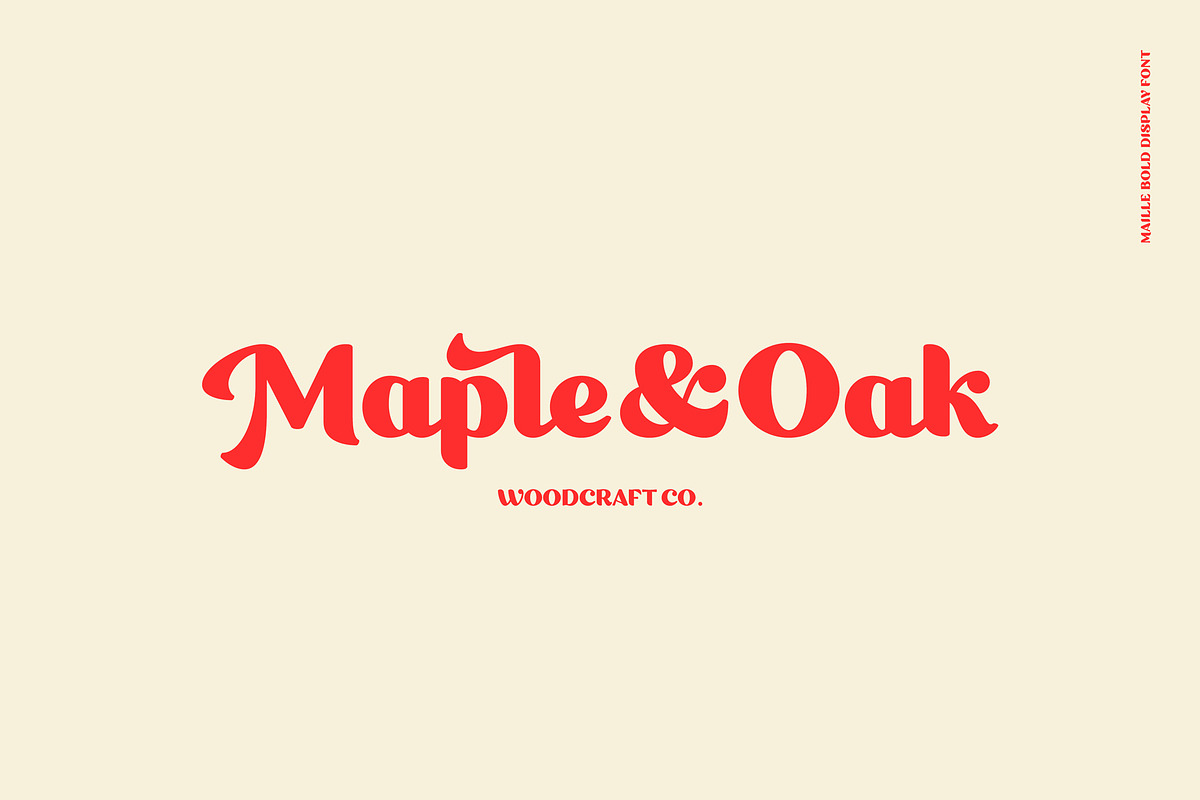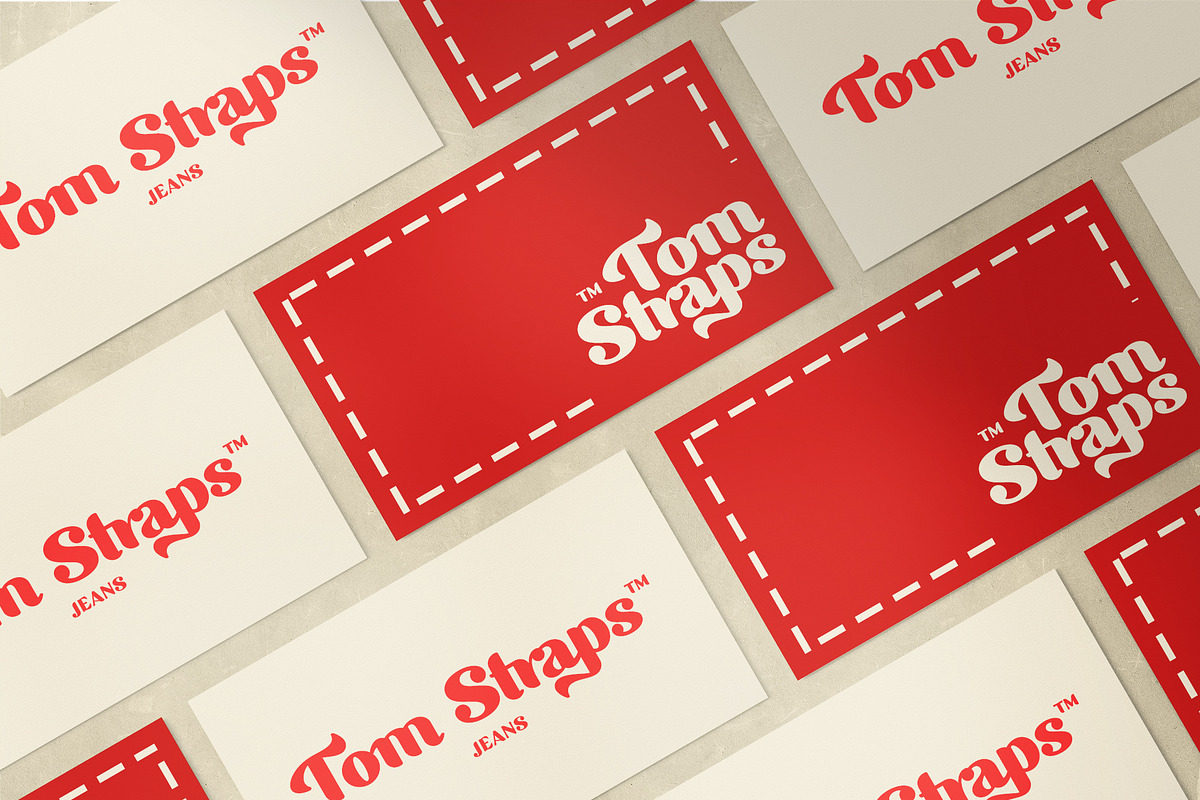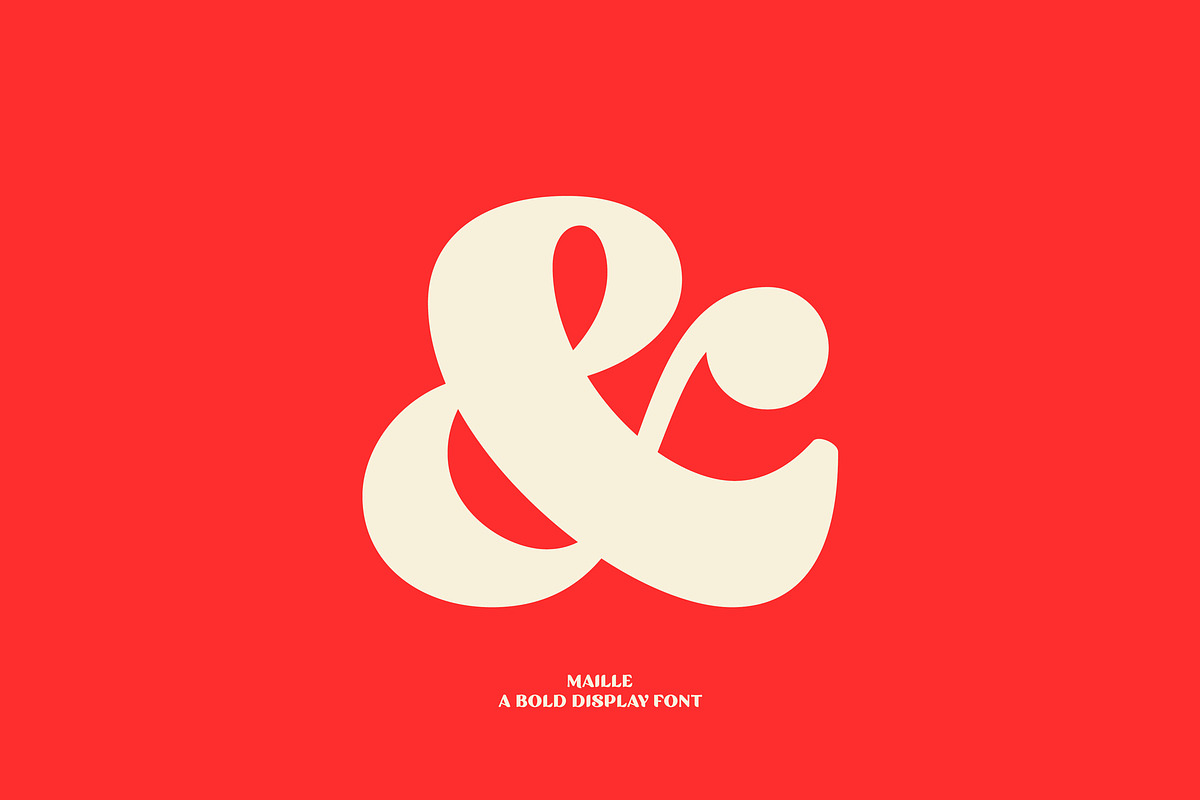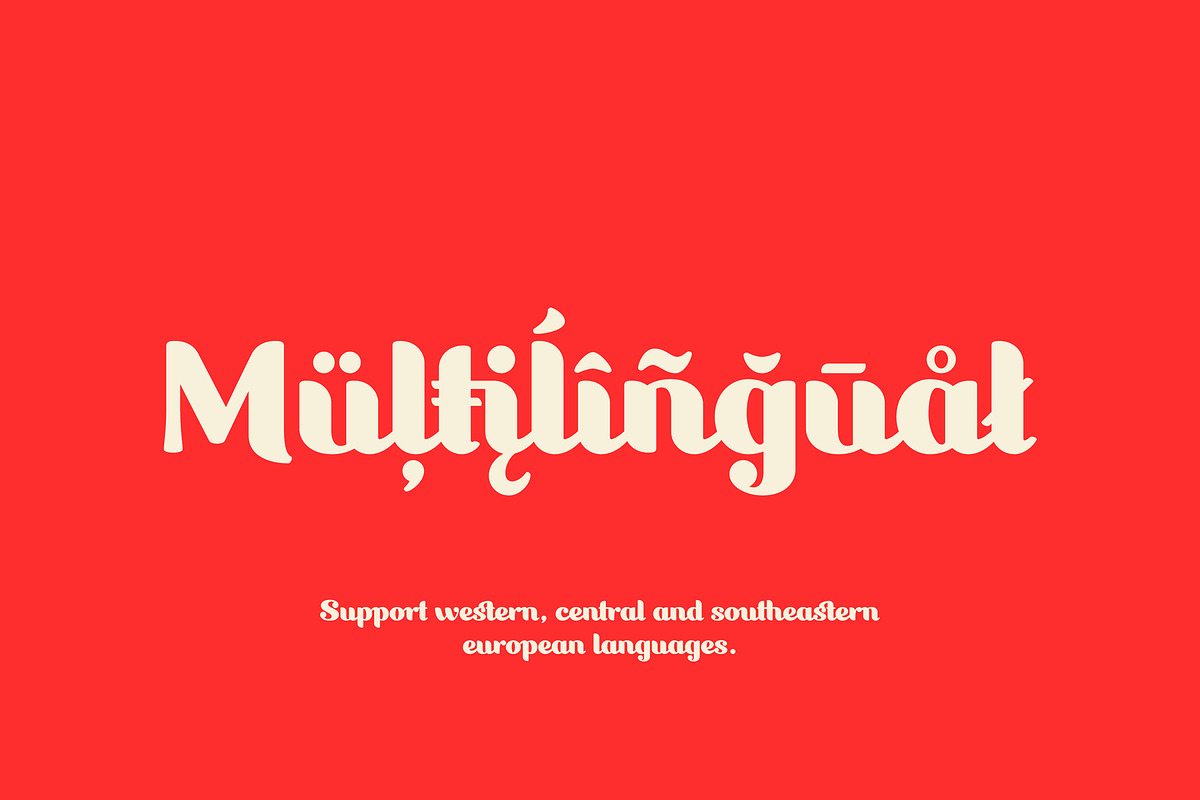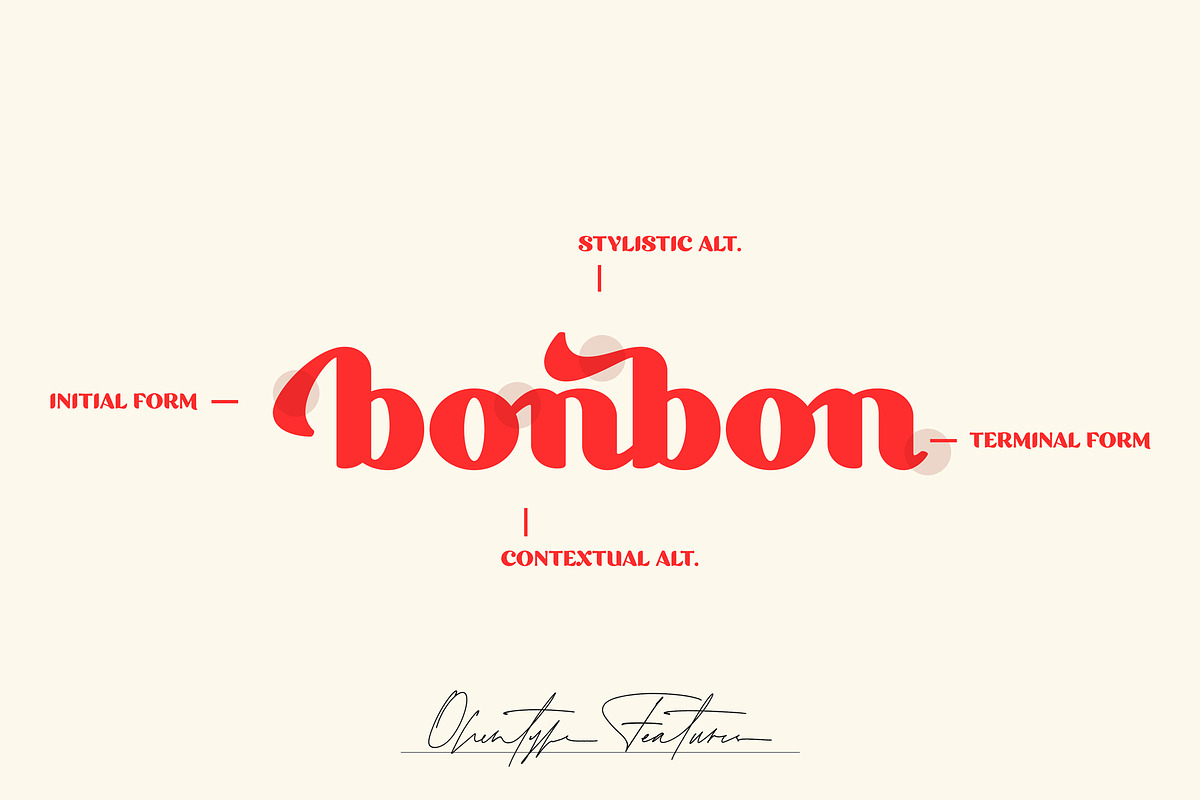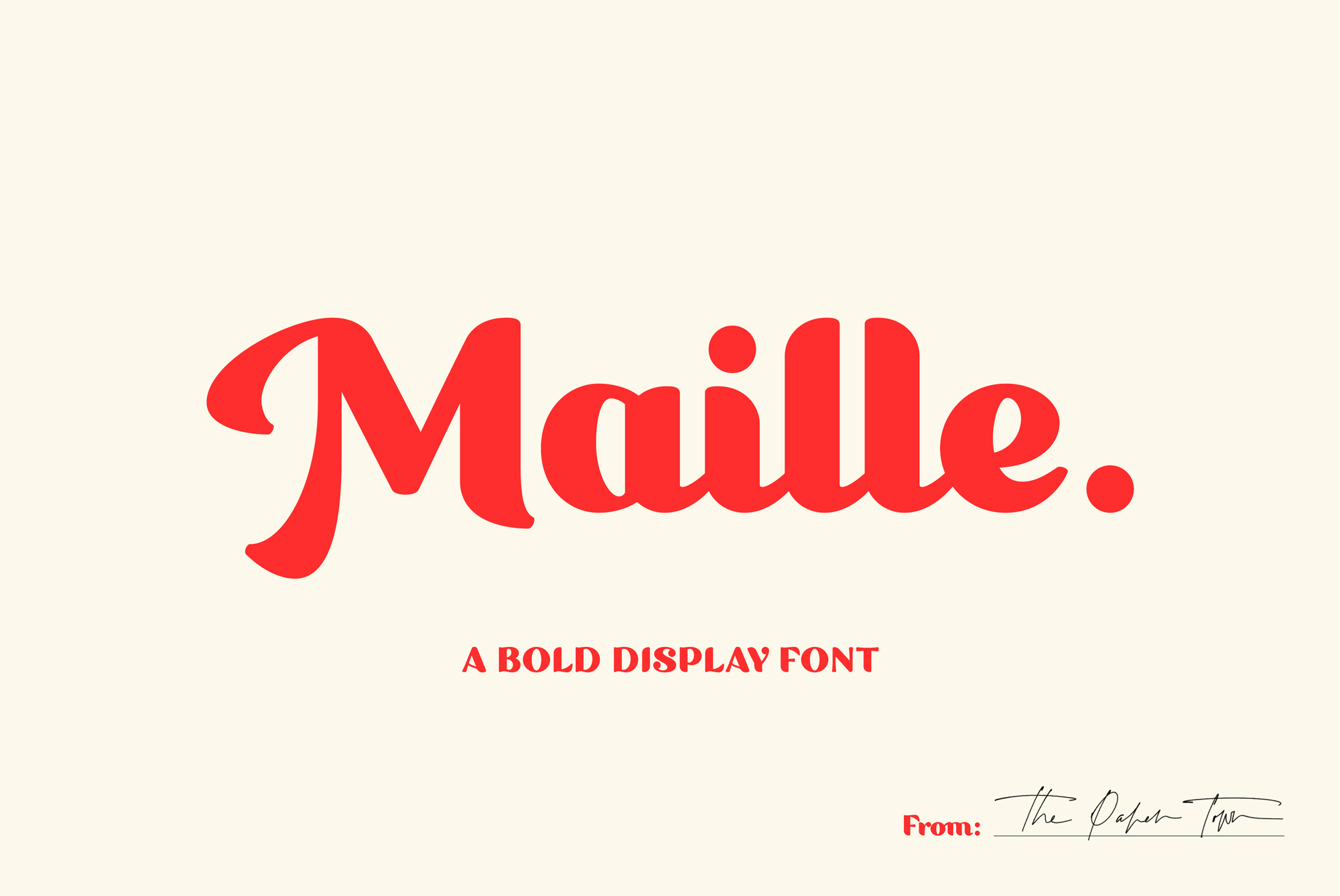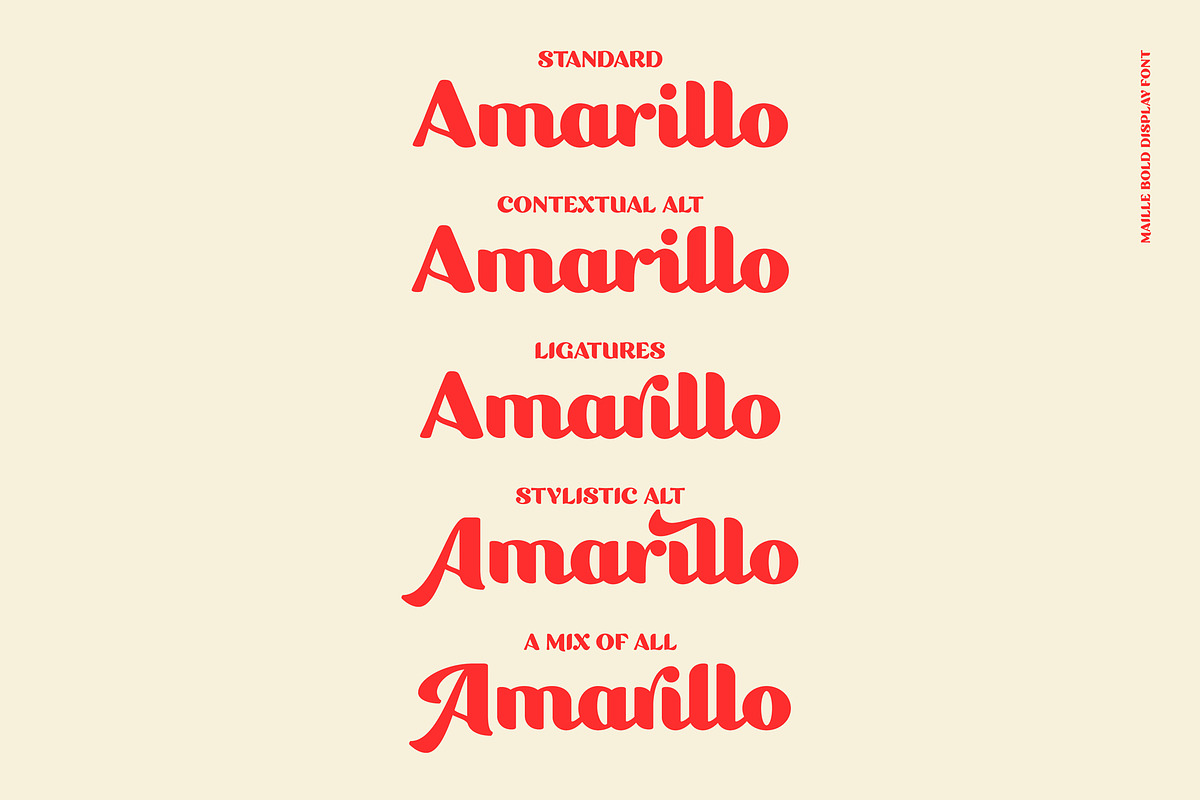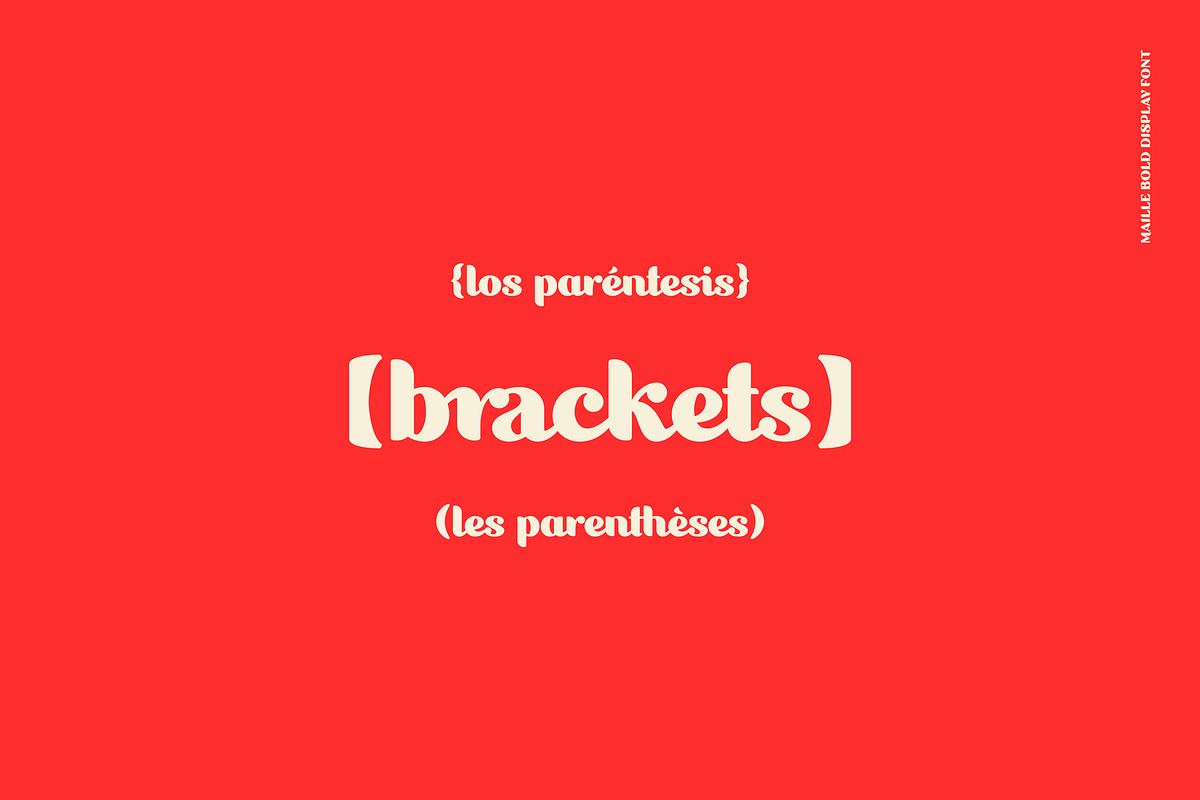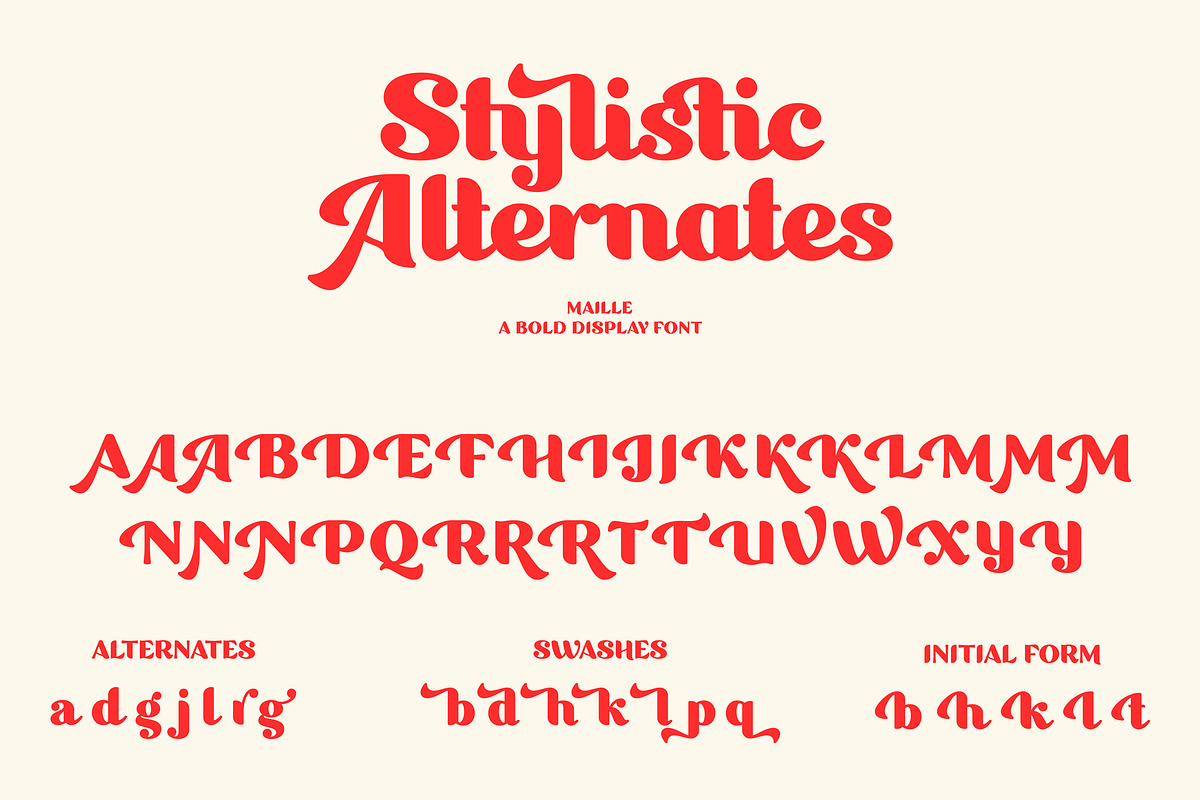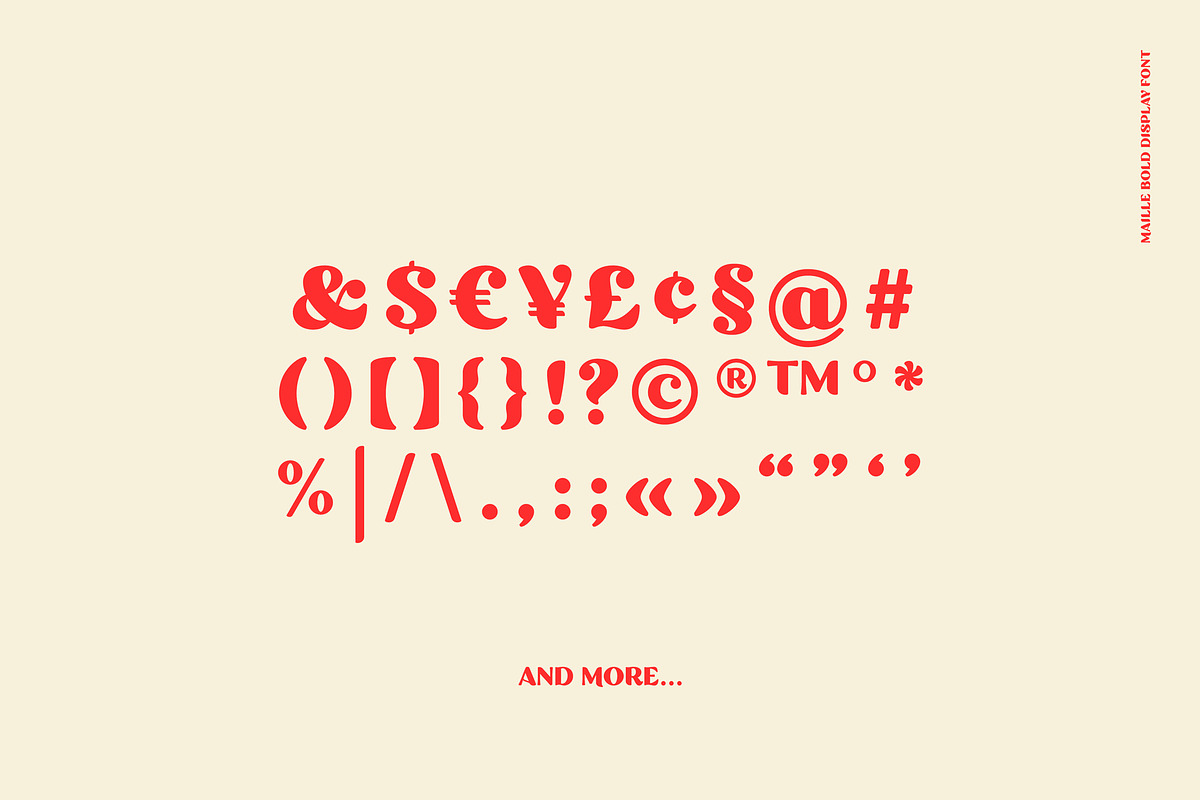
Introducing "Maille" a bold display font powered by OpenType, featuring contextual alternates, beautiful ligatures and stylistic sets with just a hint of retro feel.
Maille comes with a set of 720+ glyphs and a nice compact and smooth style than is especially appropriated for big headers, editorials, advertising, branding, packaging and so much more.
OpenType Features
OpenType features include stylistic alternates with lovely swashes, initial and terminal forms and contextual alternates to enhance your text and create beautiful designs.
It also includes 139+ standard and discretionary ligatures with multilingual support.
Maille supports multilingual characters for western, central and south-east European languages. Feel free to message me if you're unsure of any language support.